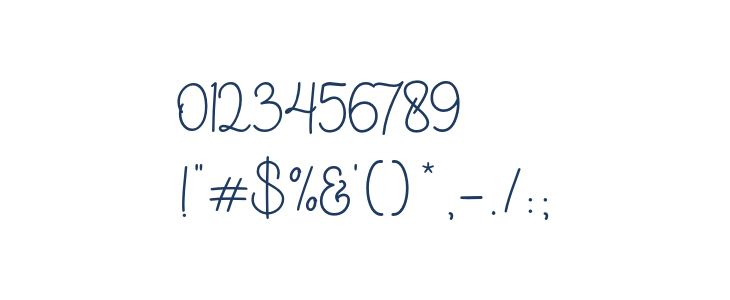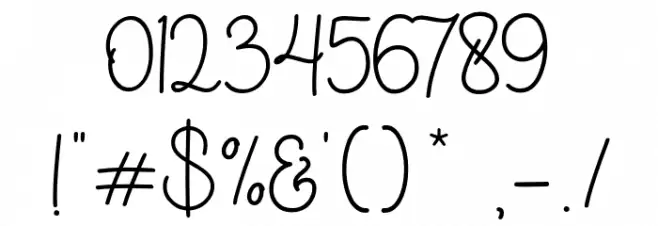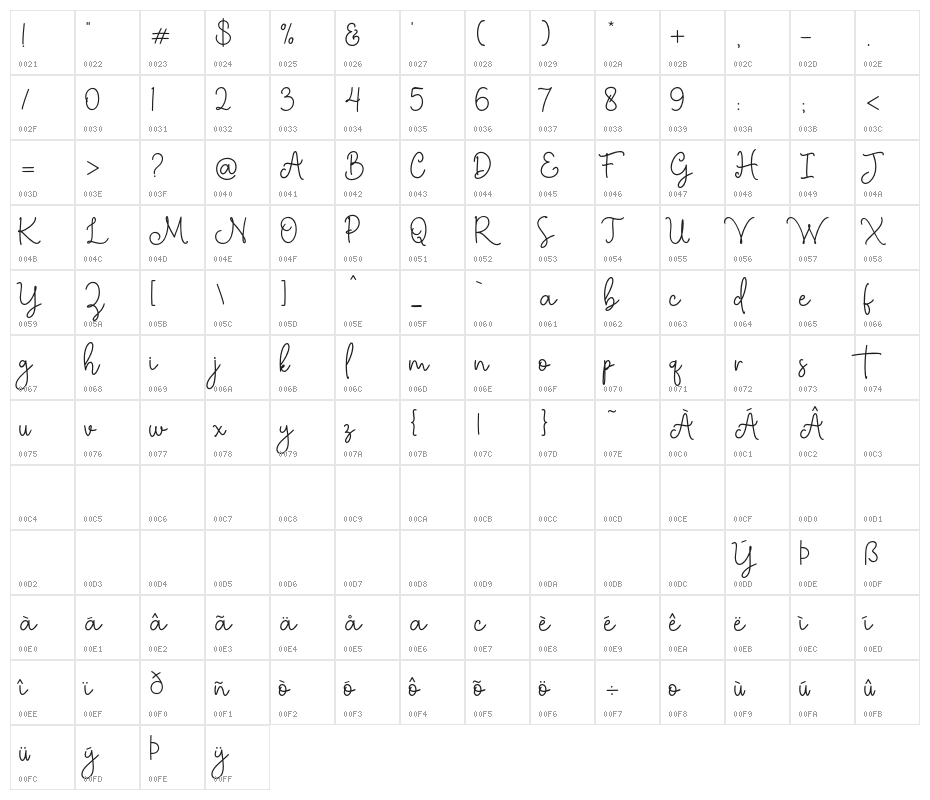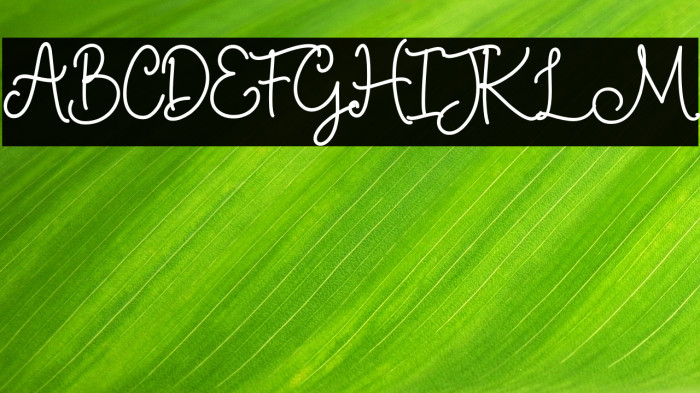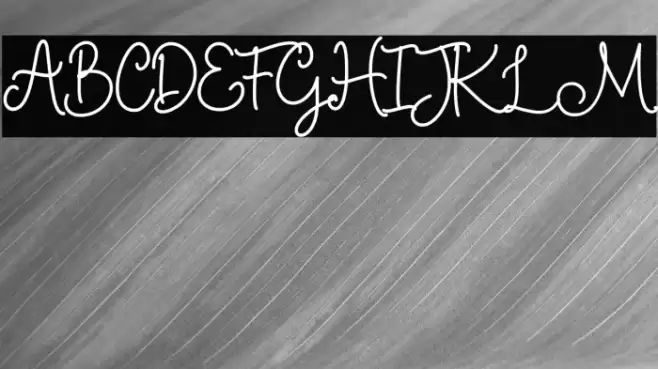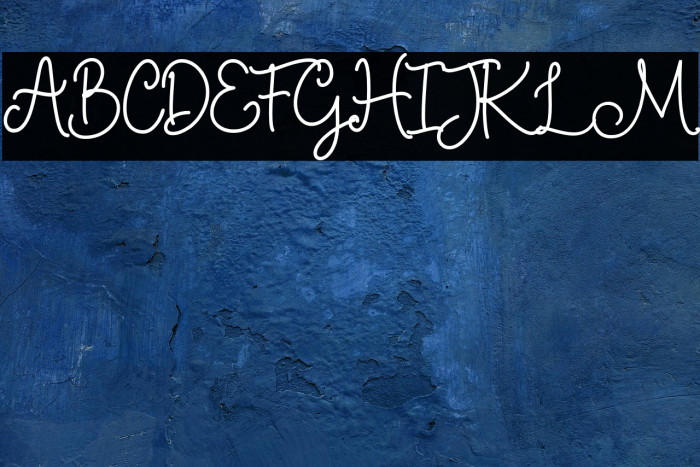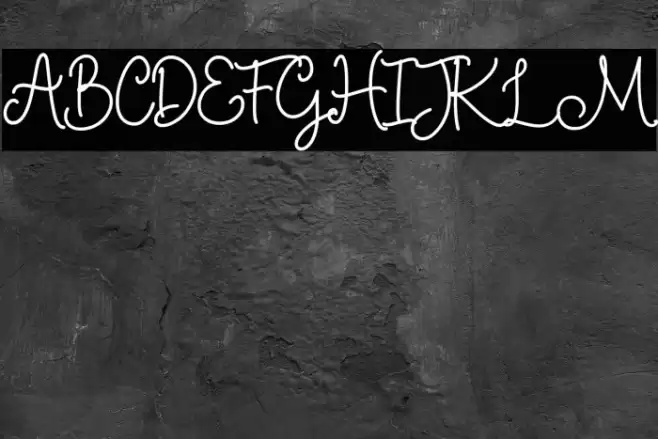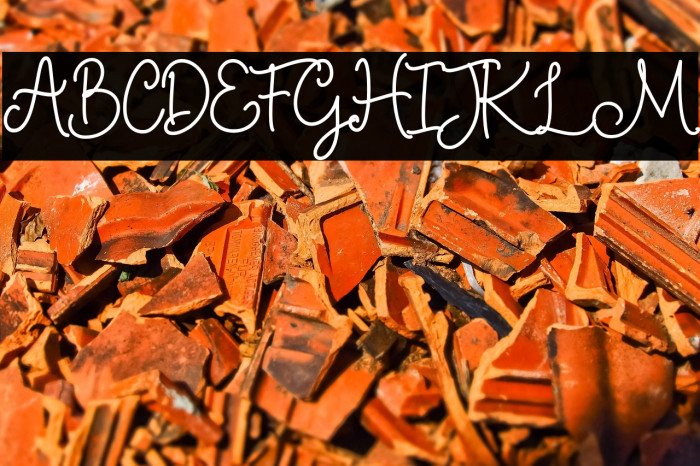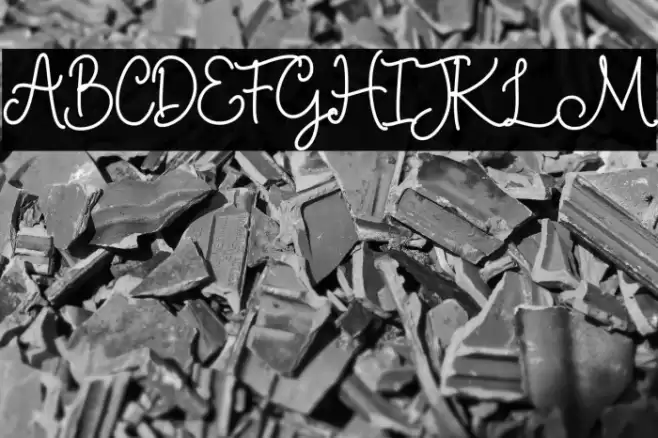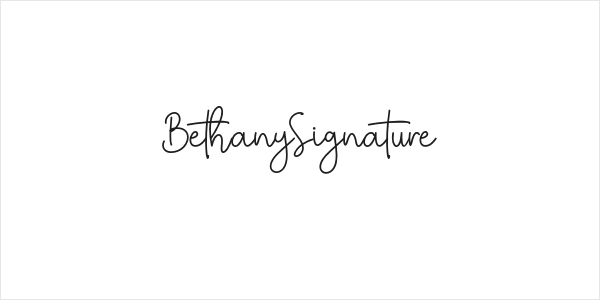
BethanySignature Font
BethanySignature Description
This font exudes a charming and elegant handwritten style, characterized by its fluid and graceful curves. The uppercase letters are bold and slightly larger, providing a strong presence, while the lowercase letters maintain a consistent flow with a slightly more delicate touch. The numerals are well-integrated, matching the overall aesthetic with their rounded and smooth forms. Special characters are thoughtfully designed, ensuring they complement the alphabetic characters seamlessly. The overall appearance is both sophisticated and approachable, making it ideal for conveying a personal and friendly tone.
| Overall Style | Elegant, Personal |
| Proposed Projects | Ideal for wedding invitations, personal branding, greeting cards, and elegant stationery. |